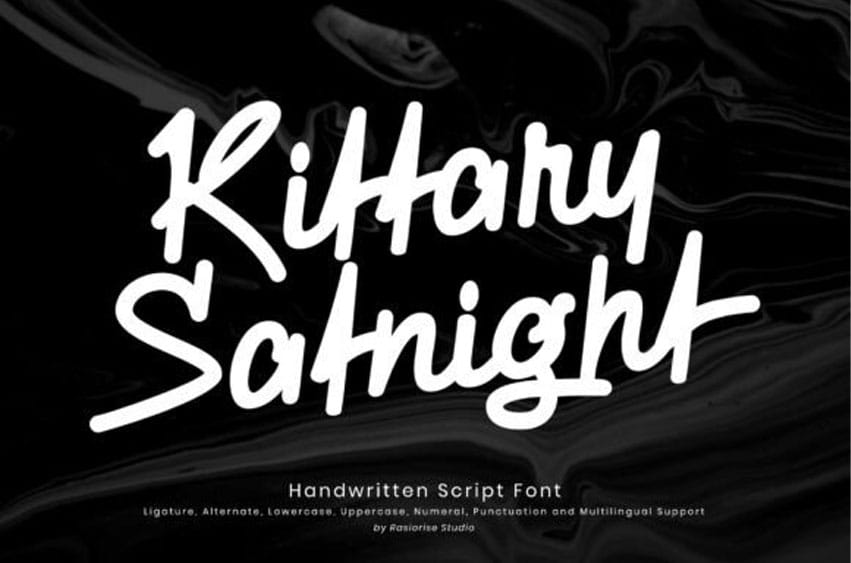
Kittary Satnight Font is a casual and energetic handwritten script font that captures the feeling of effortless, marker-style lettering. It features bold, fluid strokes with a natural “bouncy” rhythm and slightly irregular terminals that provide an authentic, hand-drawn character.
The font includes versatile features such as ligatures and alternates to enhance its organic flow. This typeface is a perfect choice for social media graphics, trendy lifestyle branding, personal signatures, and creative packaging that requires a stylish and approachable “human” touch.